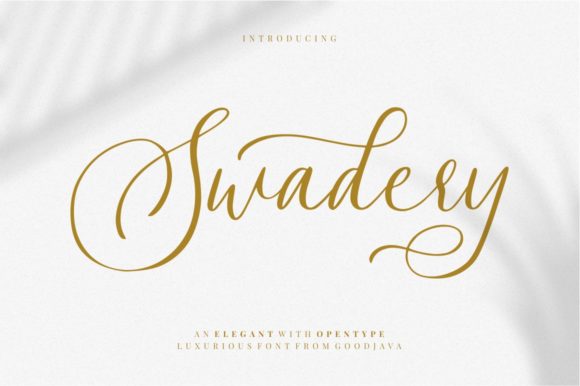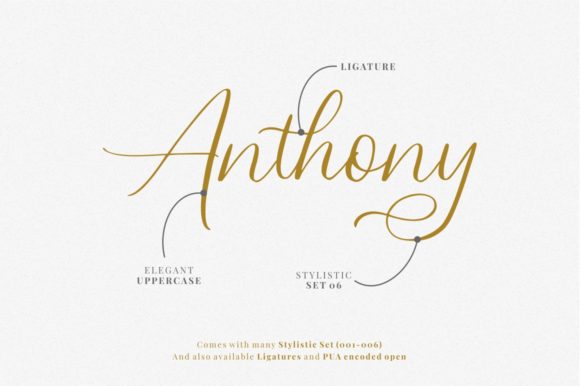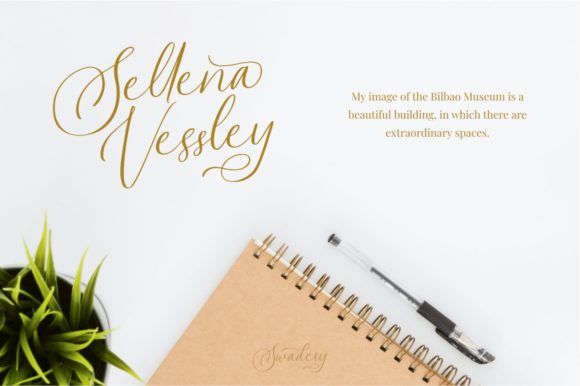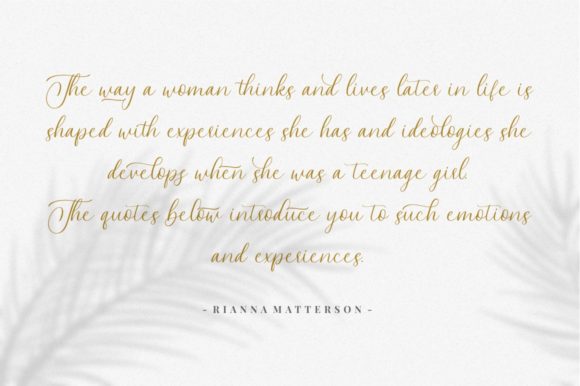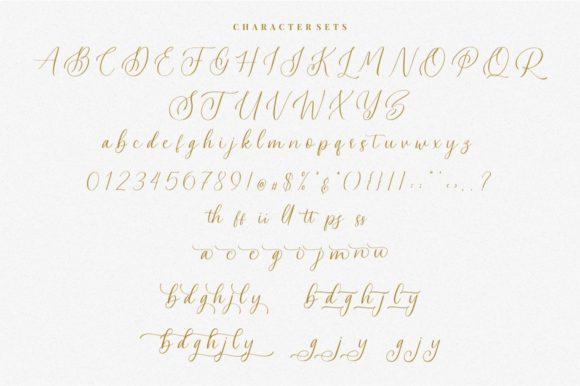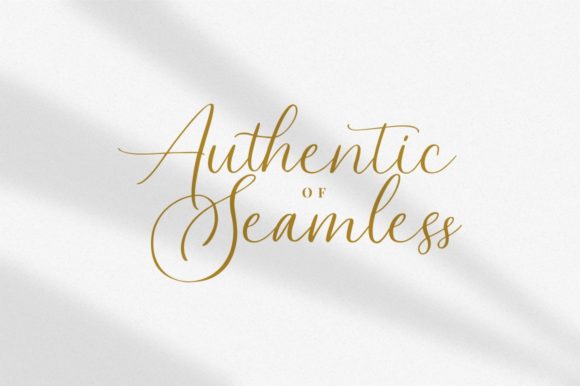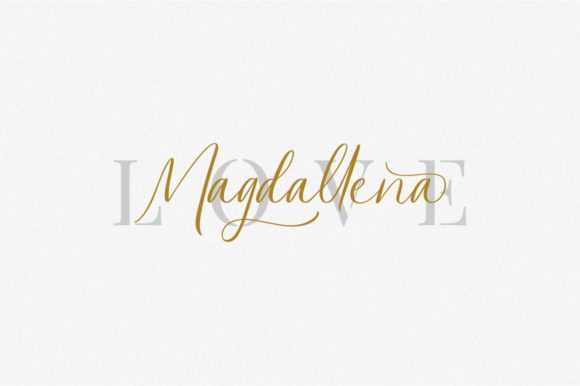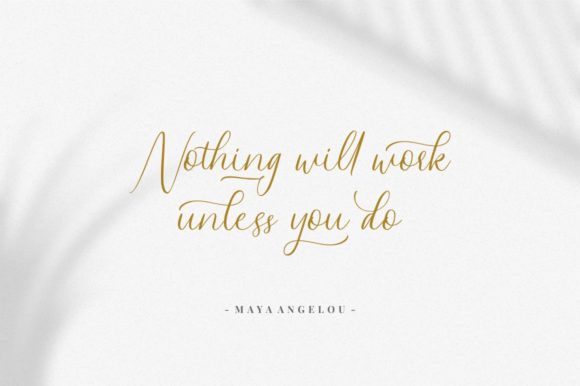
Swadery Font
About Swadery Font
Swadery is a luxury script font. Its modern look is perfect for logos, invitations, social media posts, advertising, product packaging and much more!